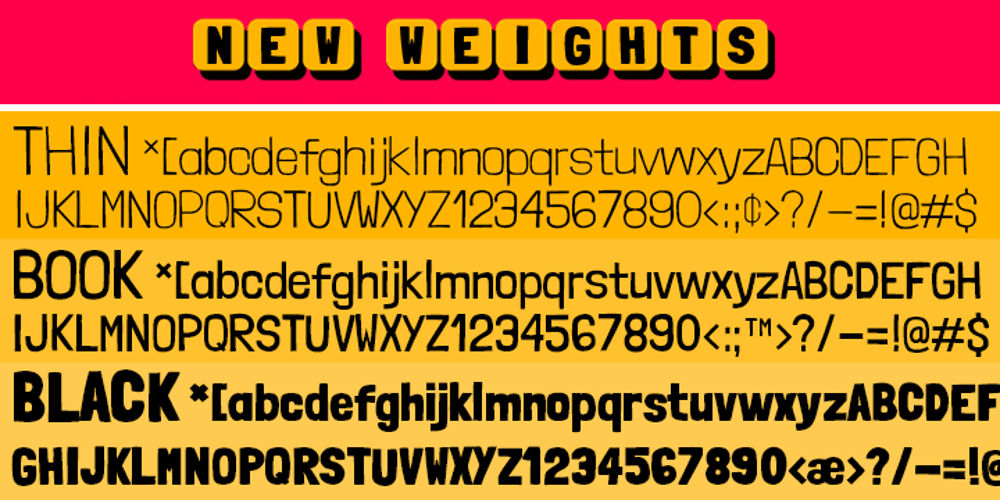
Londrina Font Family was designed by Marcelo Magalhães Pereira and published by Tipos Pereira. Londrina contains 7 styles and family package options. Londrina is formerly known as Folk. The Londrina family originally had four typefaces: Solid, Shadow, Outline and Sketches. The idea is to combine the main typeface Solid with the others, experiencing different outlines. Now Londrina has three new weights: Thin, Book and Black, growing the family to work with the Solid version.